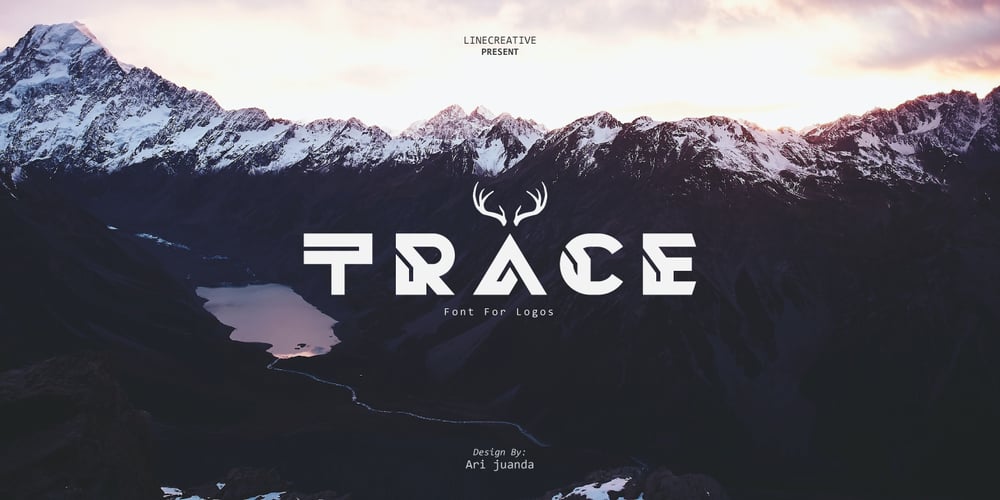
Trace
Trace font
Trace Font Family was designed by Ari Juanda and published by Linecreative. Trace contains 1 styles and family package options. Introducing “Trace,” a captivating display font that seamlessly marries the ancient mystique of Nordic symbols with a bold, futuristic modernity. This unique typeface transcends traditional boundaries, emerging as a striking fusion of historical symbolism and cutting-edge design. “Trace” is not merely a font; it’s a visual journey that bridges the past and the future, offering a distinctive and versatile aesthetic.Inspired by Nordic symbols, “Trace” breathes new life into these ancient motifs, infusing them with a sleek and contemporary vibe. Each character carries the rich storytelling heritage of Nordic culture, interpreted through a lens of modern sophistication. The result is a font that is both timeless and forward-thinking, making it an ideal choice for those seeking a balance between tradition and innovation.As a display font, “Trace” commands attention with its bold and commanding presence. Its carefully crafted letterforms embody a sense of strength and purpose, while the subtle Nordic influences add an air of mystery and intrigue. Beyond its role as a traditional typeface, “Trace” transcends expectations by doubling as a symbol font. Unlock a treasure trove of symbolic possibilities, allowing you to weave intricate narratives or create visually stunning patterns that go beyond the constraints of traditional alphabets.Whether you’re designing for futuristic branding, creating a visual language for a tech-forward project, or simply seeking a font that tells a story of cultural richness, “Trace” is your creative companion. Versatile and impactful, this font opens doors to a realm where ancient symbols and modern design converge, allowing you to explore uncharted territories in your creative endeavors. Embark on a design journey that spans centuries with “Trace.What you get, you will get:1. Trace – Clean San serif font including Uppercase & Lowercase (ALL CAPS) characters,2. Numbers and Punctuation3. Support Multi language (Western Europe Latin)